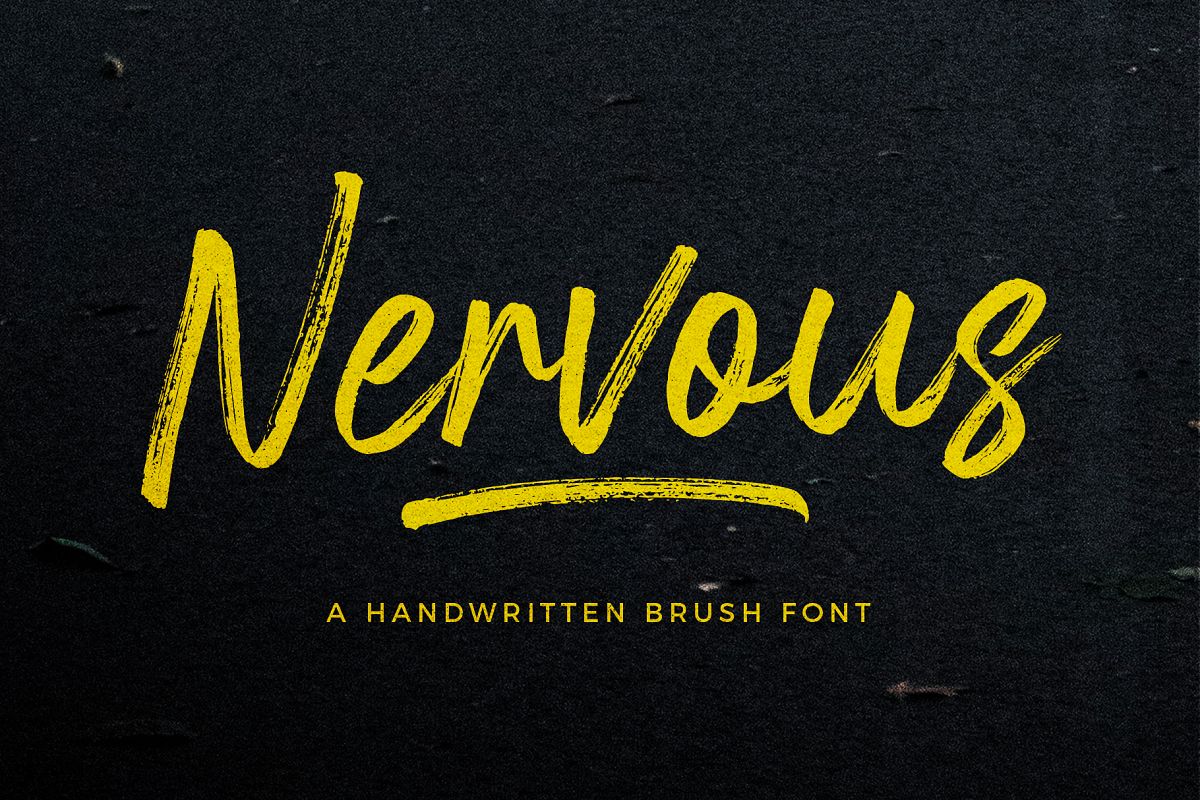
Nervous Brush Font
Nervous
Nervous is a handwritten font with textured brush which makes it perfect for branding, logo, poster design, book covers, invitations, packaging, headers, greeting cards, apparel designs, fashion campaigns, newsletters, album covers, quote, designs and more.